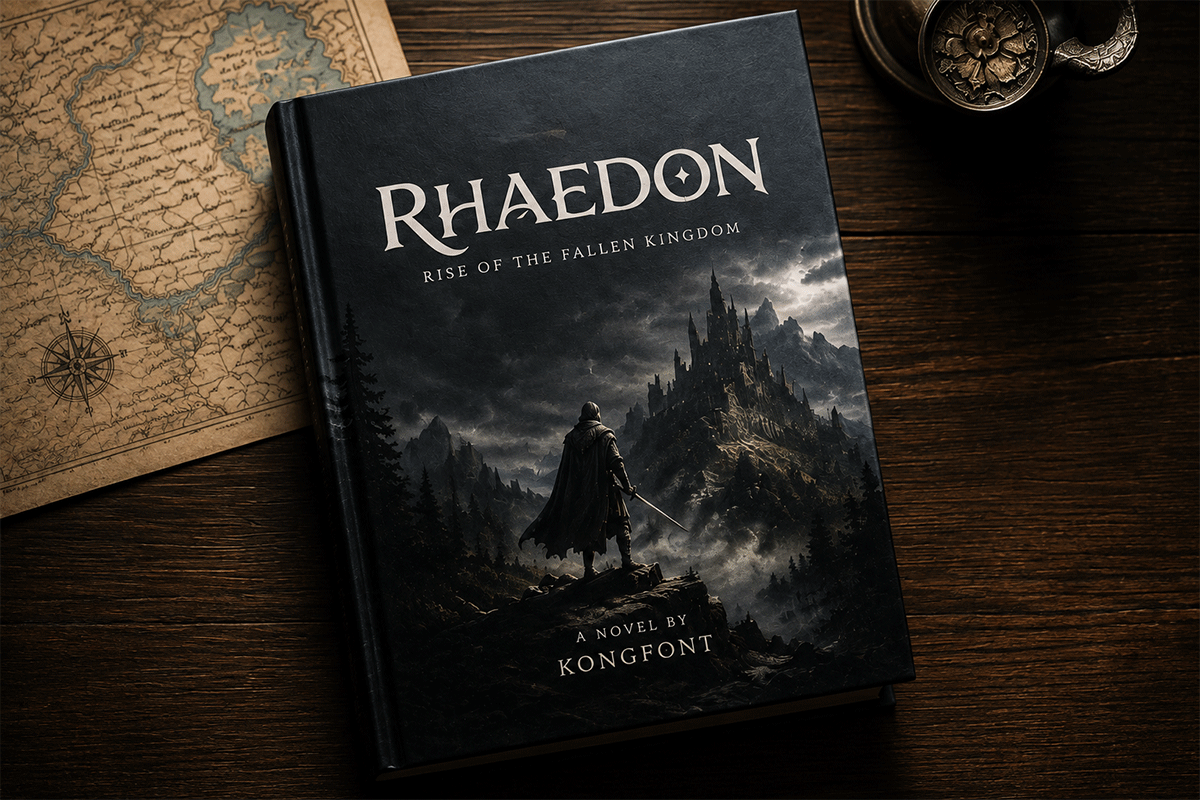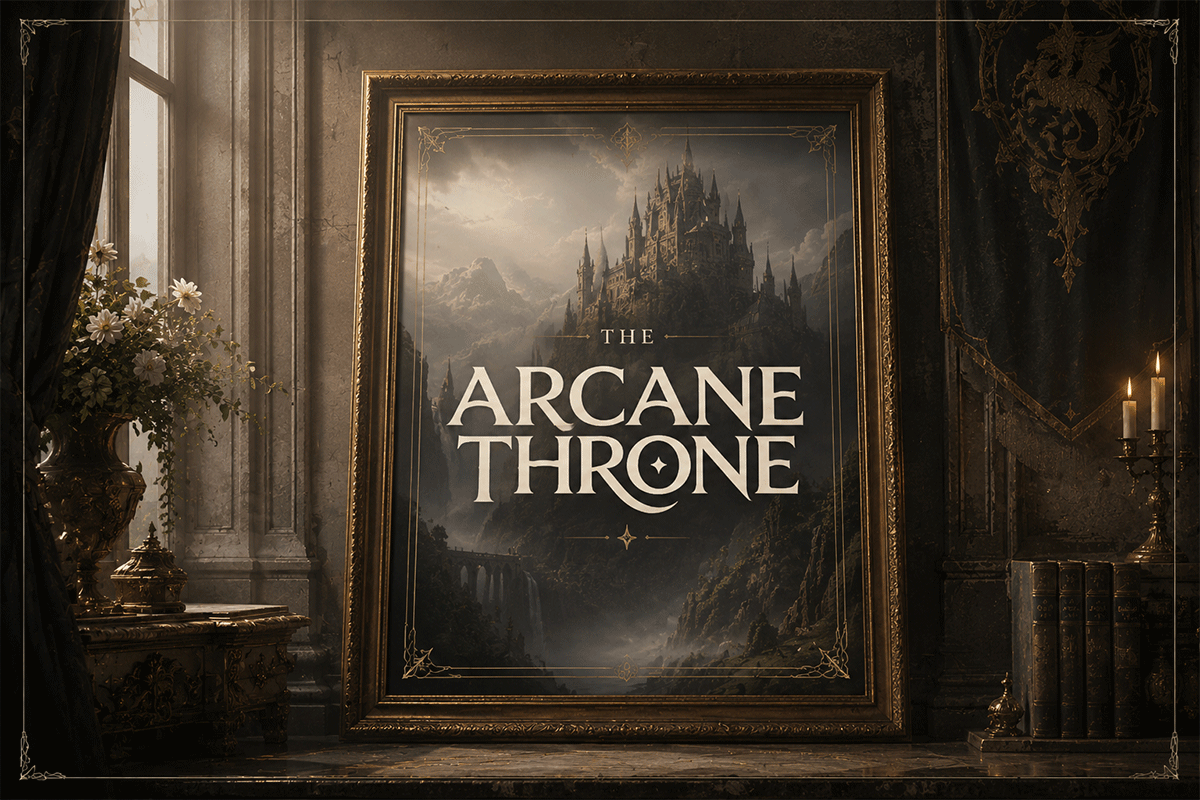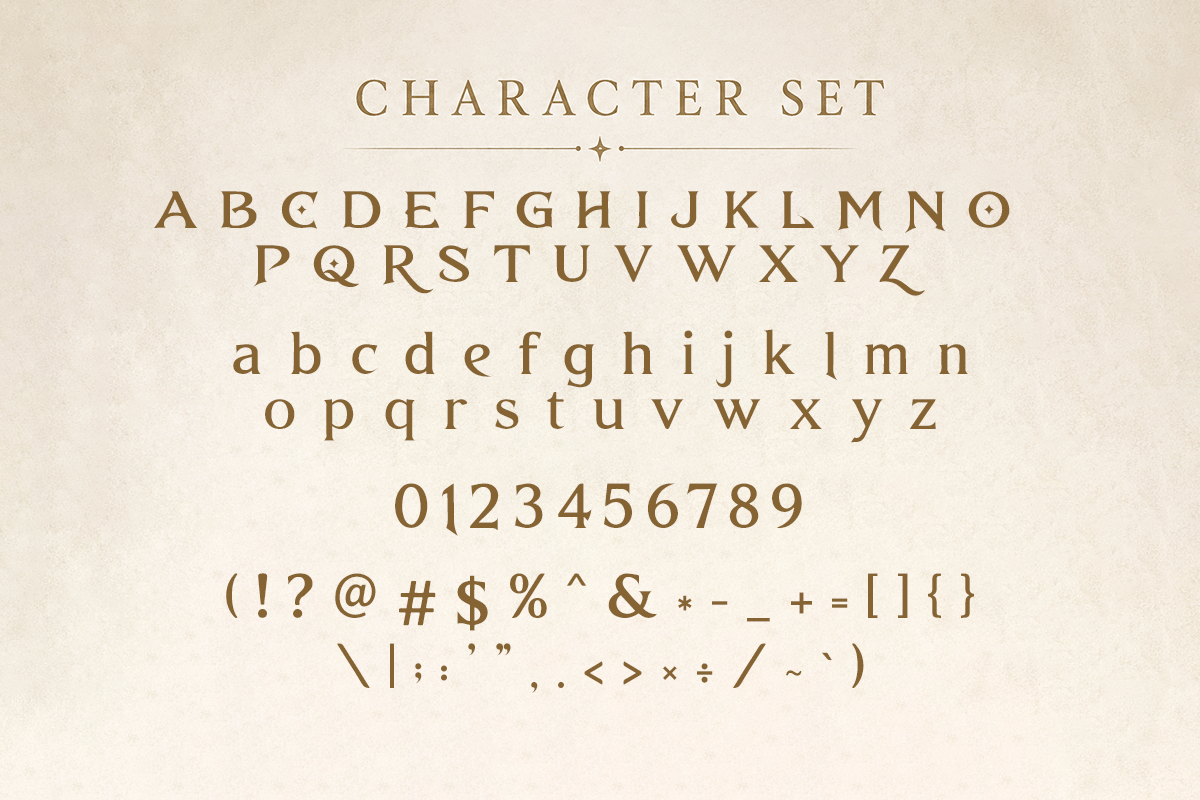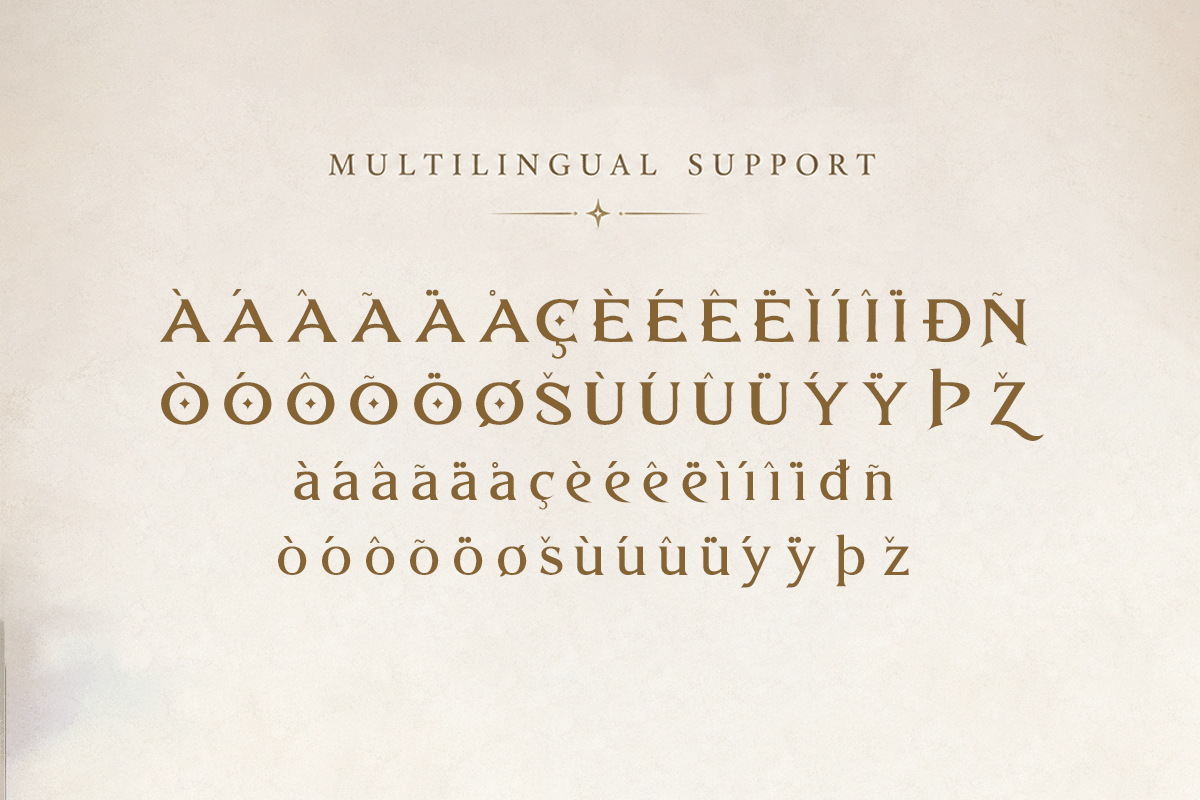
Rhaedon A Modern Serif Fantasy Font is a fantasy serif font built for creative work that needs a epic and legendary personality. The design combines strong serif construction, medieval-inspired details, and dramatic display character, giving the typeface a clear visual identity without sacrificing practical readability for display use.
Rhaedon is especially effective for fantasy books, movie posters, game titles, RPG branding, packaging, logos, album artwork, and merchandise. It can carry the main visual voice in a logo or headline, while still feeling cohesive across supporting graphics, campaign assets, packaging, and branded content.
The typeface pairs the direction of a fantasy serif font with the character of a medieval serif font. This makes it a strong option when you want typography that feels intentional, memorable, and closely matched to the project mood instead of using a generic display face.
Recommended for:
- Fantasy Books
- Movie Posters
- Game Titles
- RPG Branding
- Packaging
- Logos
- Album Artwork
- Merchandise